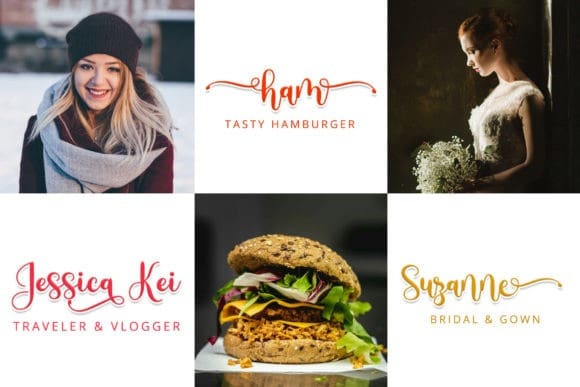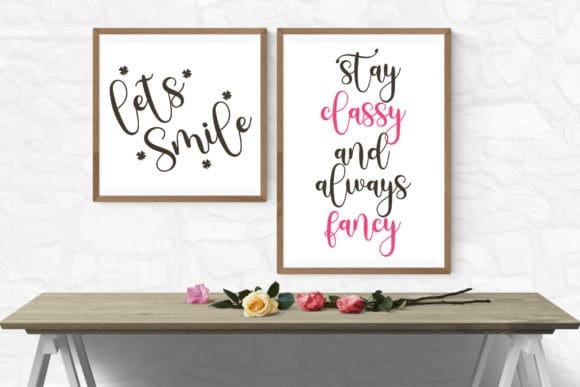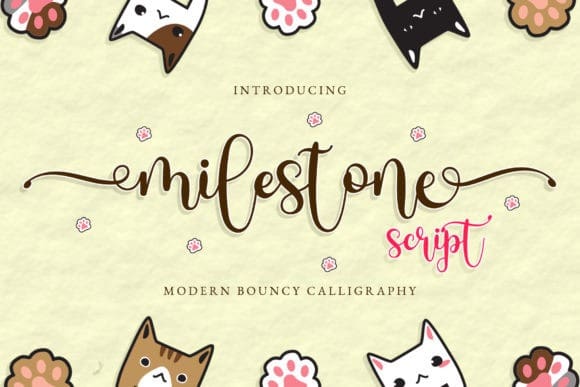
Milestone Font
Milestone Font is a delicate and sweet handwritten font. It is combining sweetness and cuteness in modernity. This font is so catchy to be used in any design, such as social media content, wedding invitation, greetings, branding, logo, and many others.